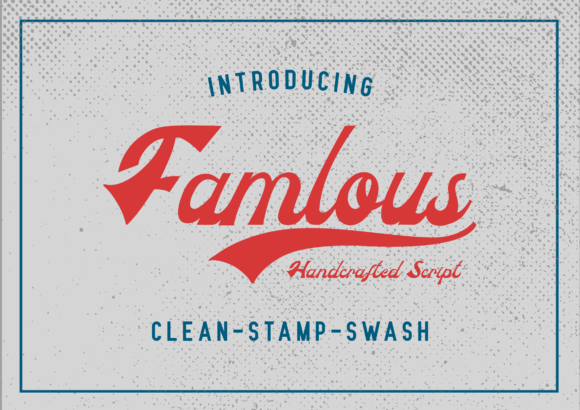
Prepare to be mesmerized by Famlous Font, the captivating script that will ignite your creativity and elevate your designs to extraordinary heights. This exquisite typeface, meticulously crafted by manglingi.std, is a testament to the power of imagination and the artistry of handwritten elegance.
With its bold strokes and distinctive flair, Famlous Font dances across the page, leaving an unforgettable impression on all who behold it. Its every curve and flourish exudes a captivating charm, inviting you to explore the boundless possibilities that await.
Whether you're crafting delicate packaging that demands attention or seeking to add a touch of whimsy to your digital creations, Famlous Font is the perfect companion. Its versatility knows no bounds, allowing you to unleash your creativity and make your mark in the world of design.
Embrace the allure of Famlous Font and watch as your projects transform into masterpieces. Let its bold presence command attention and its graceful lines evoke emotions that resonate with your audience.
Don't settle for ordinary fonts; choose the extraordinary. Choose Famlous Font and embark on a journey of artistic discovery where your imagination reigns supreme.